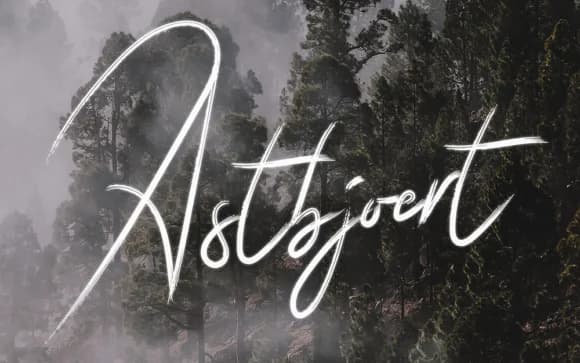
Astbjoert has the raw energy of a hand-drawn brush, capturing that moment when ink hits paper with natural urgency. Created by edinsartstudio, this script font brings authentic texture to any project that needs to feel made by actual human hands rather than software defaults.
The rough, expressive letterforms perform beautifully in Instagram story graphics and social media overlays where a hand-lettered aesthetic actually matters to your audience. Product labels and boutique packaging come alive with its organic, tactile character. Band logos and music artwork gain real credibility from its gritty, unpolished quality that signals authenticity. Clothing graphics show off the font's distinctive stroke variations, while DIY event signage and posters benefit from the inherent personality it brings. Apparel design, packaging projects, and other work all gain that imperfect perfection of sketch-and-ink letterforms.
This is a working script font, not a decorative one gathering dust on your shelf. Pair it with a clean sans-serif for body copy to maintain readability while keeping your brush letterforms as the visual hero. That contrast between rough and refined makes both fonts shine brighter. Find Astbjoert on Creative Fabrica and start layering in some real character.
Astbjoert Font is a script font that shines as a display or heading face. Pair it with a clean sans-serif or serif font for body text β the contrast creates a clear hierarchy while the two styles stay balanced and easy to read.